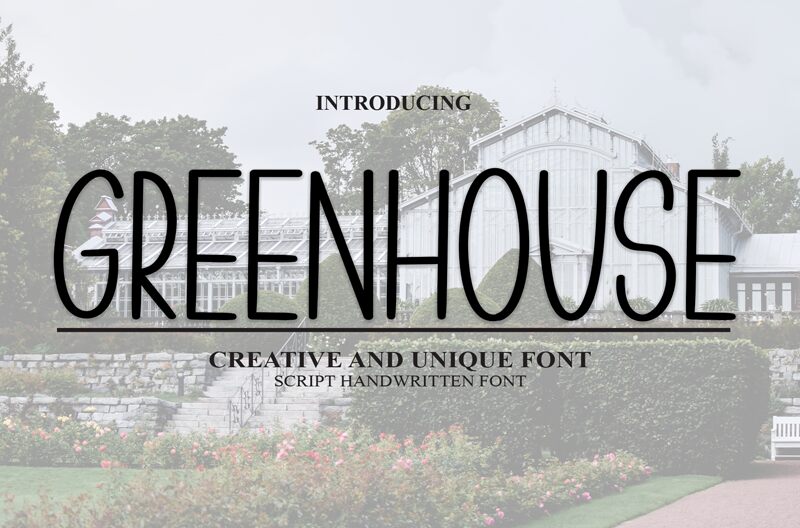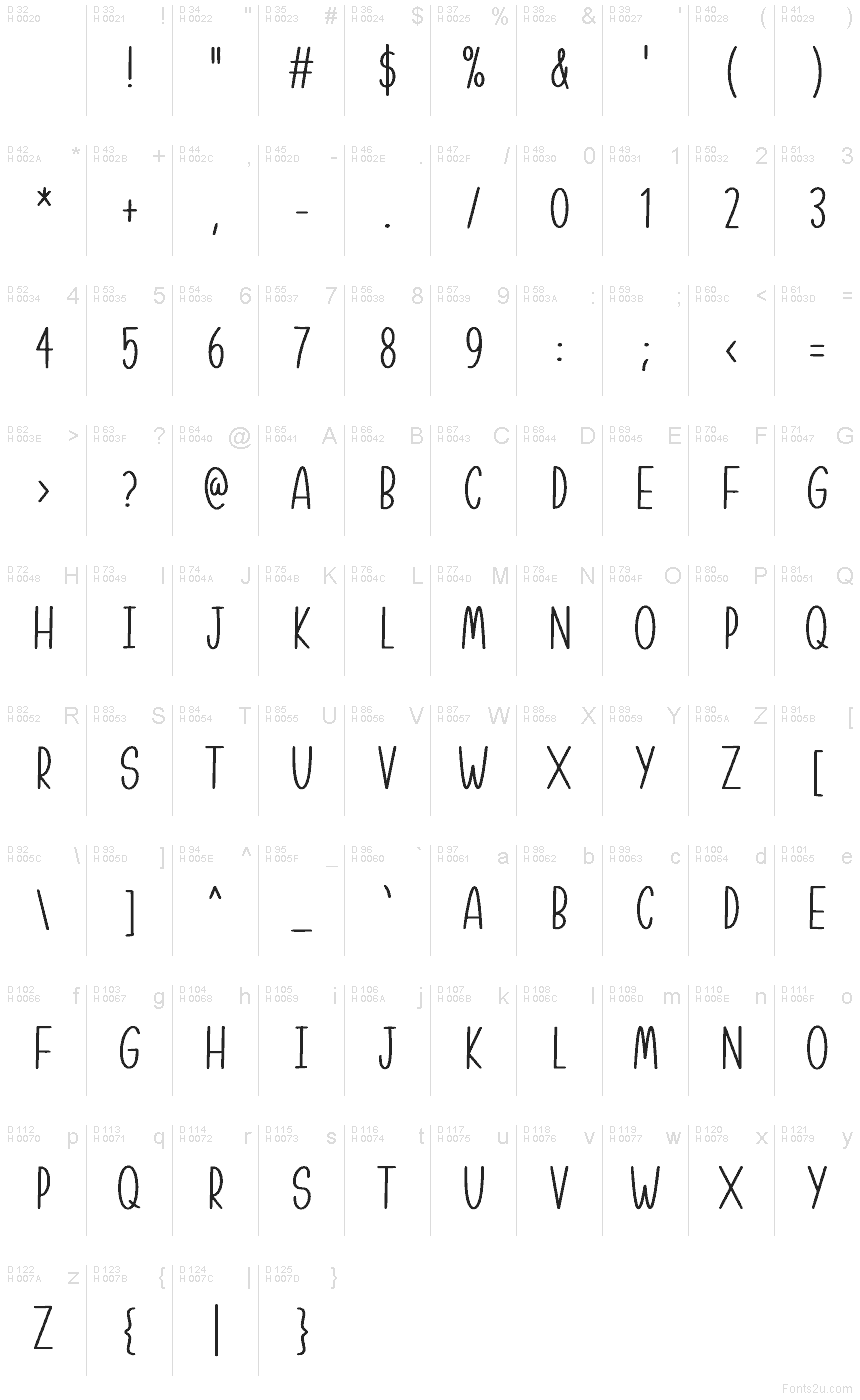
Greenhouse
Greenhouse font by Creatype Designer is a free handwritten typeface with tall, narrow letters that feel like they’ve been drawn thoughtfully on kraft paper tags. The strokes are slim and even, with a gentle wobble that keeps it warm and human while staying clean enough for real-world branding. It has a light, airy presence—like handwriting on a seed packet or a chalkboard menu—making it easy to read even in tighter spaces.
Using Greenhouse, this free font shines on product labels, organic or eco-friendly packaging, café menus, recipe cards, farmers’ market signs, and social graphics with a homemade touch. Its consistent rhythm helps headlines look tidy and intentional rather than messy. Pair this handwritten font with a simple sans serif for body text, and let Greenhouse handle the titles, tags, and short phrases that need personality without clutter.